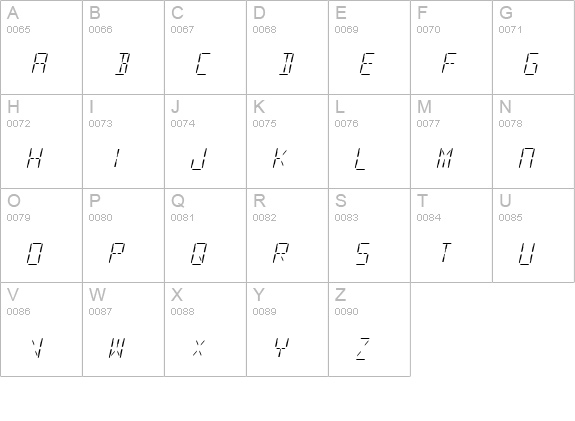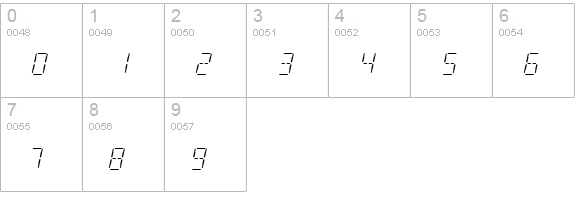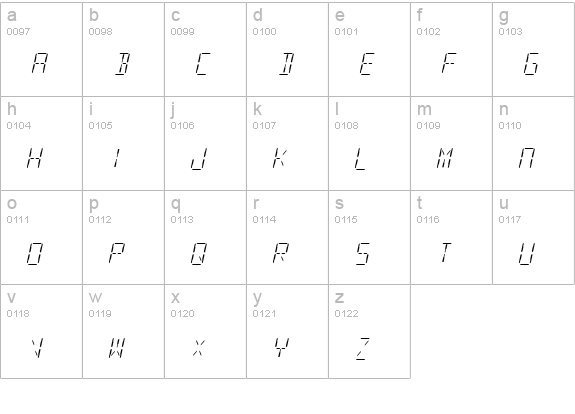
SF Digital Readout Light Oblique Font Details
SF Digital Readout Light Oblique is a refined, elegant, italic variant in the SF typeface family \xE2\x80\x94 well suited to elegant body text, refined sub-headings, and luxury branding.
SF Digital Readout Light Oblique is a sleek and modern font that is perfect for all your digital display needs. Whether you are designing a futuristic website, creating a sci-fi themed poster, or developing a high-tech app, this font is sure to make a bold statement. With its clean lines and sharp angles, SF Digital Readout Light Oblique exudes a sense of precision and technology. The oblique slant adds a dynamic touch, making your text stand out and catch the eye. This font comes in a light weight, making it ideal for smaller displays or when you want a more subtle visual impact. The characters are well-defined and easy to read, ensuring that your message will be conveyed clearly to your audience. One of the best things about SF Digital Readout Light Oblique is that it is freely available to download at FontsMarket.com. You can easily access this font and start using it in your projects without any hassle. So if you are looking for a versatile and modern font that will enhance your digital designs, look no further than SF Digital Readout Light Oblique. Download it now at FontsMarket.com and elevate your creations to the next level.